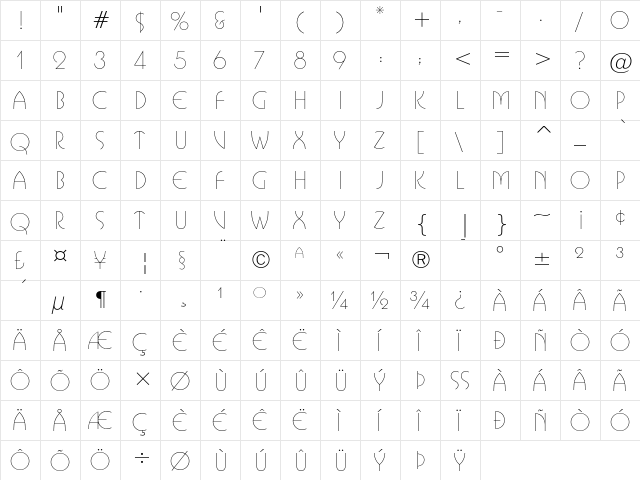
ITC Busorama Light Font Preview
ITC Busorama Light
ITC Busorama Light Font Details
Design Context for ITC Busorama Typeface
ITC Busorama takes a measured approach to typography — its balanced proportions and neutral character make it a reliable workhorse for both digital and print work. The delicate stroke weight brings airiness and refinement to layouts.